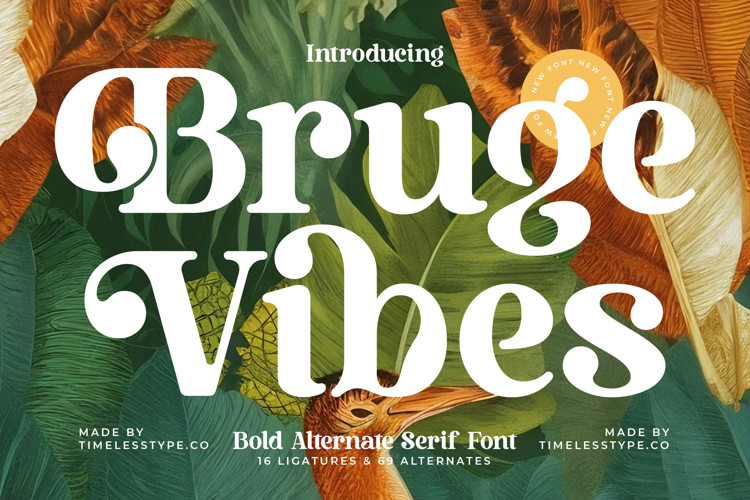
Bruge Vibes - Bold Alternate Serif Font
Elevate your design projects with Font Bruge Vibes - Bold Alternate Serif Font Serif Display, a typeface designed to command attention and convey sophisticated charm. This captivating display font merges a bold presence with refined, unique serifs and elegant curves, creating a truly distinctive typography. Its high-contrast letterforms ensure maximum visual impact, making it the perfect choice for projects demanding an immediate and memorable aesthetic.
Unleash unparalleled creative freedom with the rich features of Font Bruge Vibes - Bold Alternate Serif Font Serif Display. Boasting an impressive collection of 16 expressive ligatures and 69 unique alternates, this font offers endless possibilities for crafting bespoke headlines, logos, and branding elements. These thoughtful additions allow designers to personalize every character, ensuring truly original and visually dynamic compositions that stand apart.
Expand your brand's global reach and appeal with the inherent adaptability of Font Bruge Vibes - Bold Alternate Serif Font Serif Display. With its extensive multilingual support, Font Bruge Vibes - Bold Alternate Serif Font Serif Display adapts seamlessly across global markets, making it incredibly versatile for international projects. This crucial feature ensures your message resonates clearly and elegantly, transcending linguistic barriers with effortless grace.
Discover the ideal typographic partner for premium branding and impactful messaging in Font Bruge Vibes - Bold Alternate Serif Font Serif Display. It is perfect for luxury branding, high-end packaging, editorial design, fashion labels, and any application requiring sophisticated headlines or a strong brand voice. Choose this font to infuse your designs with an undeniable sense of prestige, ensuring brand distinction and unforgettable visual narratives.